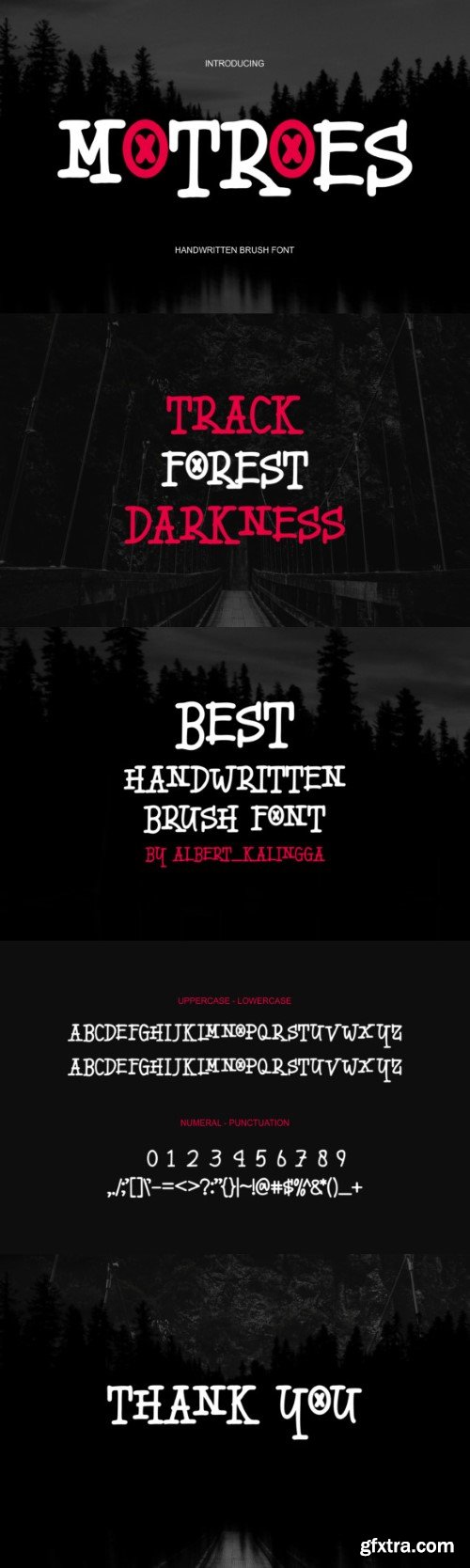
Introducing our new product **Motroes Font** – Modern Font
**Motroes Font** – Modern Font is a bold and authentic display font. The font is suitable for any branding project like logo, esport, and many more. outstanding in a wide range of contexts.